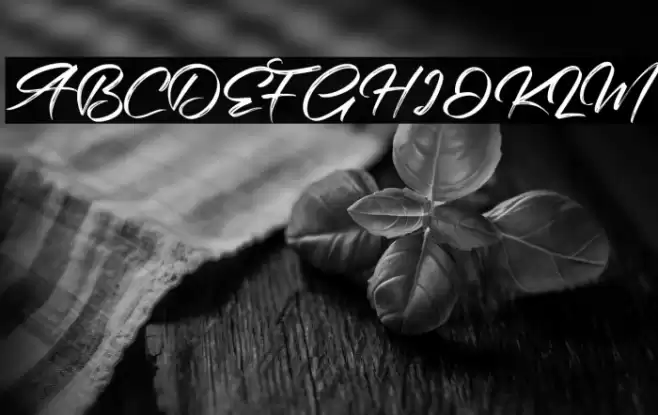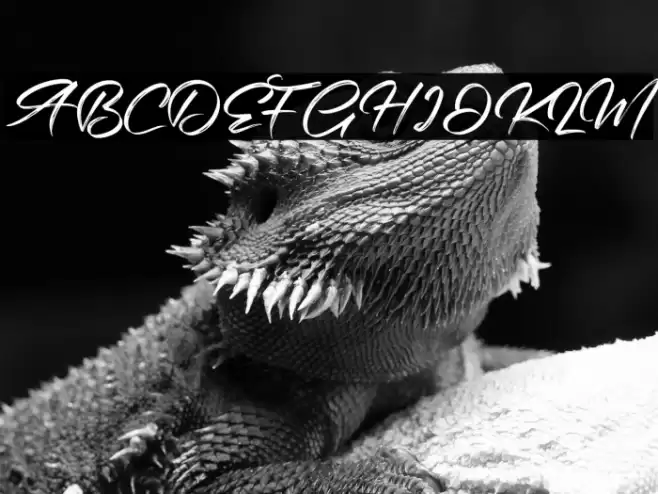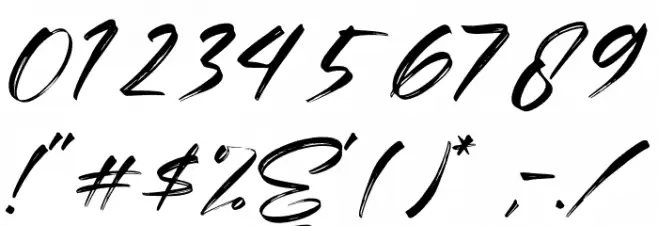
Bintang Signature Font
Bintang Signature Description
This font exudes elegance and sophistication with its flowing, cursive script style. The letters are interconnected, creating a seamless and fluid appearance that mimics the natural motion of handwriting. Each character is adorned with delicate swashes and flourishes, adding a touch of artistry and flair. The strokes vary in thickness, providing a dynamic contrast that enhances readability while maintaining an ornamental quality. This font is perfect for projects that require a personal and artistic touch, such as invitations, greeting cards, and branding materials. Its decorative nature makes it ideal for capturing attention and conveying a sense of elegance and creativity.
A flowing, cursive script font with elegant swashes and dynamic contrast from Uncategorized fonts.
- Proposed Projects: Ideal for wedding invitations, greeting cards, branding, and artistic projects.
- Character Spacing: Tight